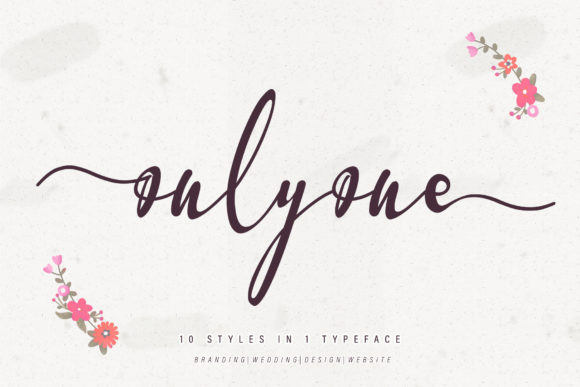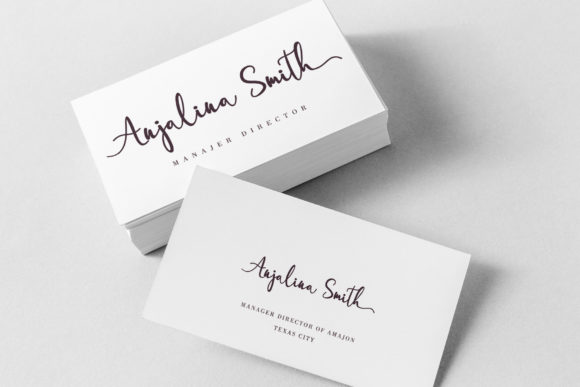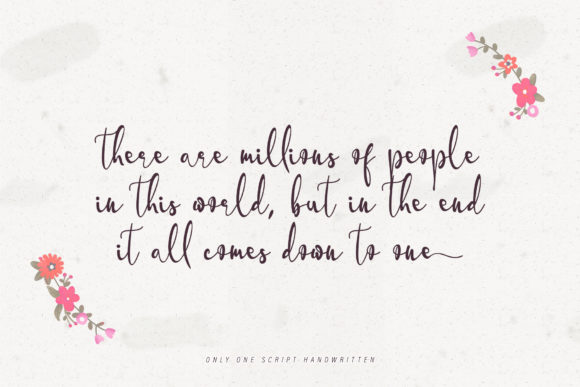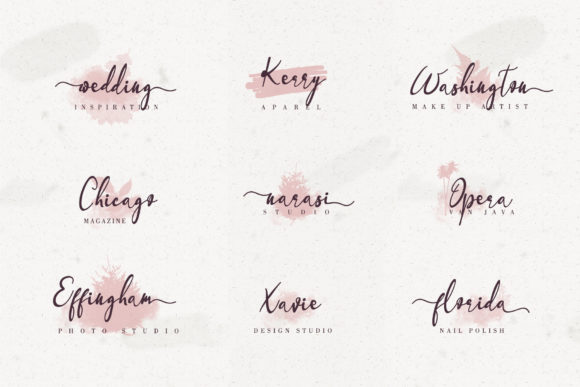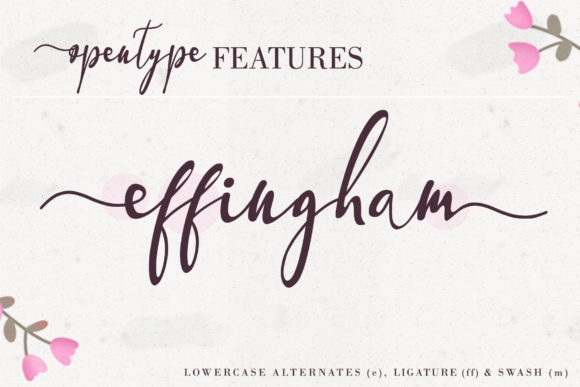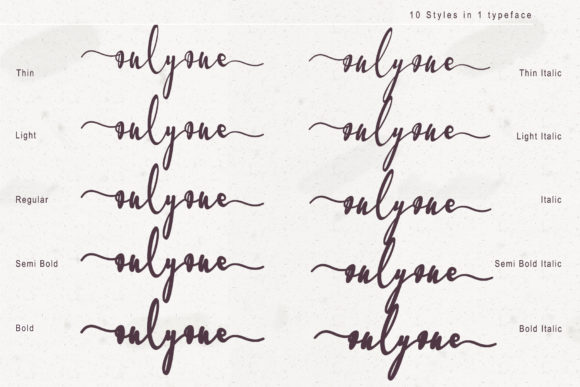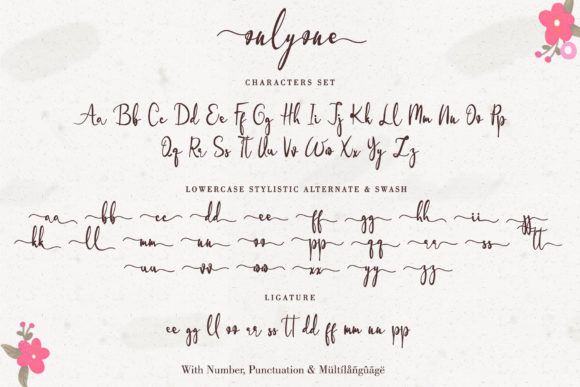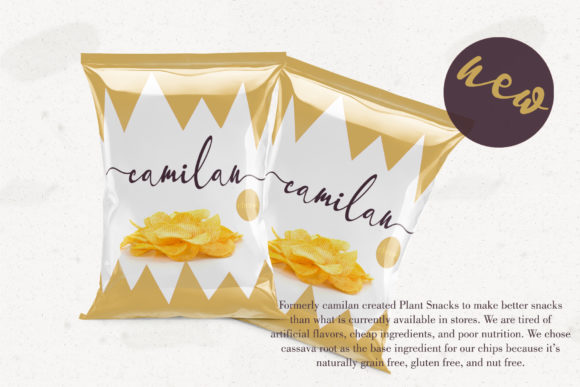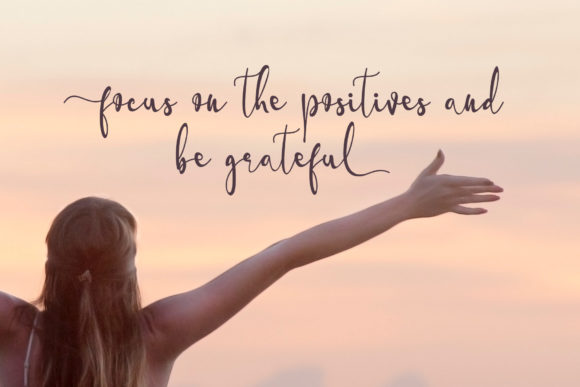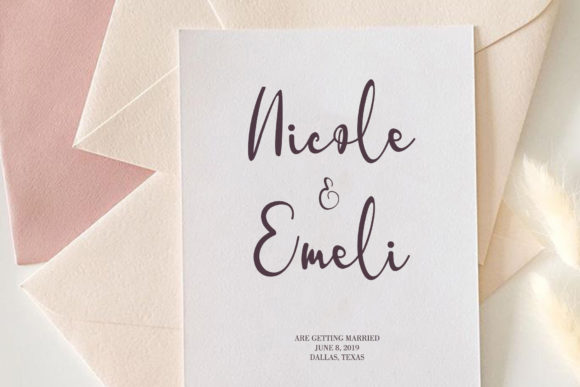
Onlyone Font
About Onlyone Font
Onlyone is a strong and cool handwritten font with a bold touch. Use it to add an authentic vibe to any crafting idea!